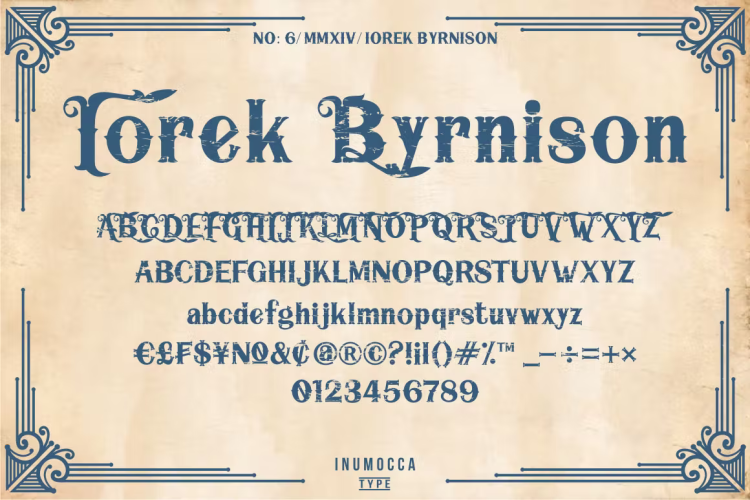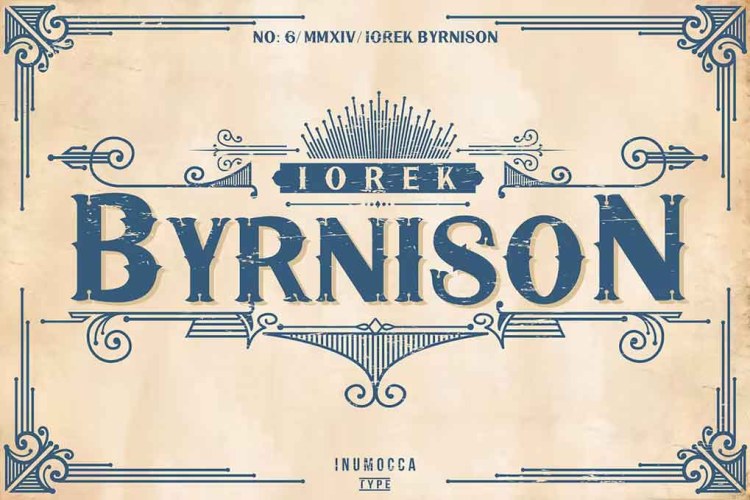
Iorek Byrnison Font
Iorek Byrnison inspired from The Golden Compass film, i realy like of Iorek Byrnison character,more power and soul, its really great font for your band, company, label,…
Iorek Byrnison inspired from The Golden Compass film, i realy like of Iorek Byrnison character,more power and soul,
its really great font for your band, company, label, clothing company, vintage or classic stuff, etc
Where Iorek Byrnison Font works best
Reports, white papers and book interiors hold the eye longer when the text face has real serifs; Iorek Byrnison Font keeps that rhythm without looking old-fashioned.
Food, spirits and cosmetics brands lean on serif wordmarks to suggest age and care. Iorek Byrnison Font gives that signal at wordmark size.
Set Iorek Byrnison Font for the body of an award or a diploma and keep the recipient name in a script; the pairing is what makes a document feel official.
It sits in the Serif Fonts group and reads as classic, free, serif, serif fonts. That makes it a candidate wherever those qualities help: headings, packaging, social graphics and brand work. Set it at the size you plan to use before deciding.